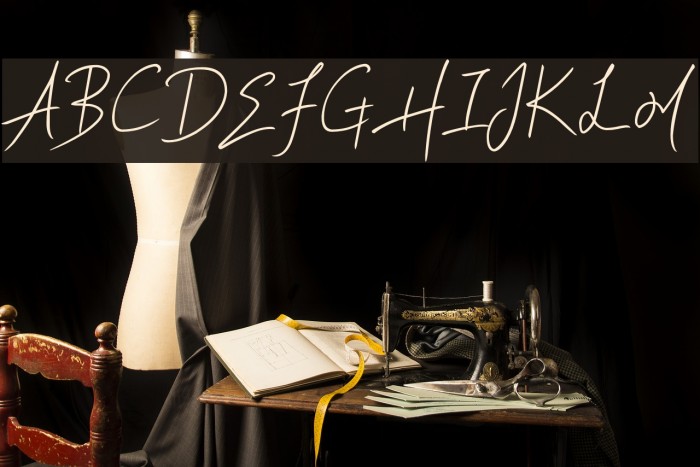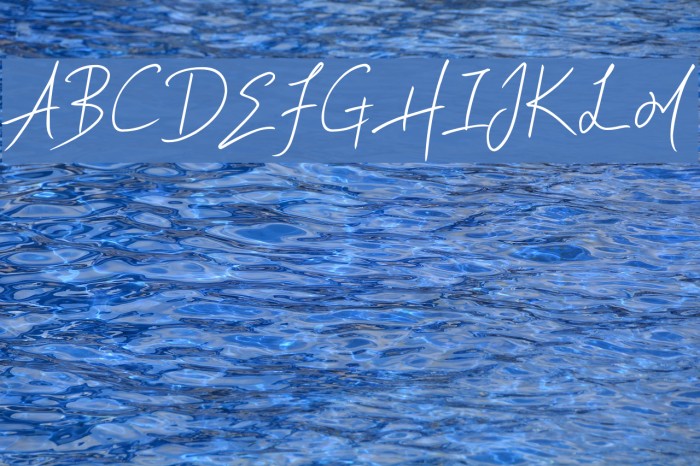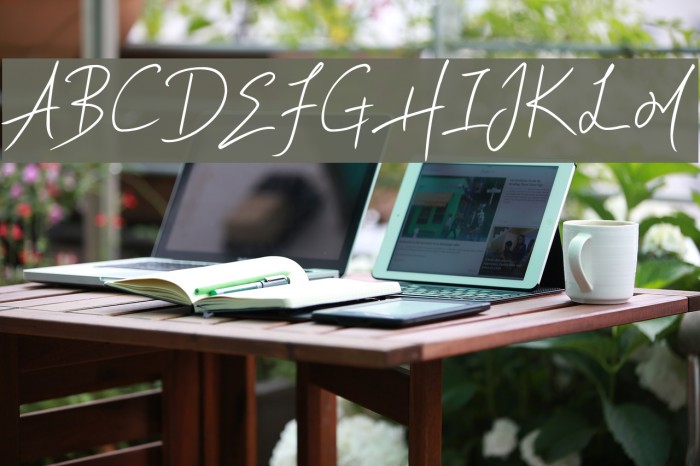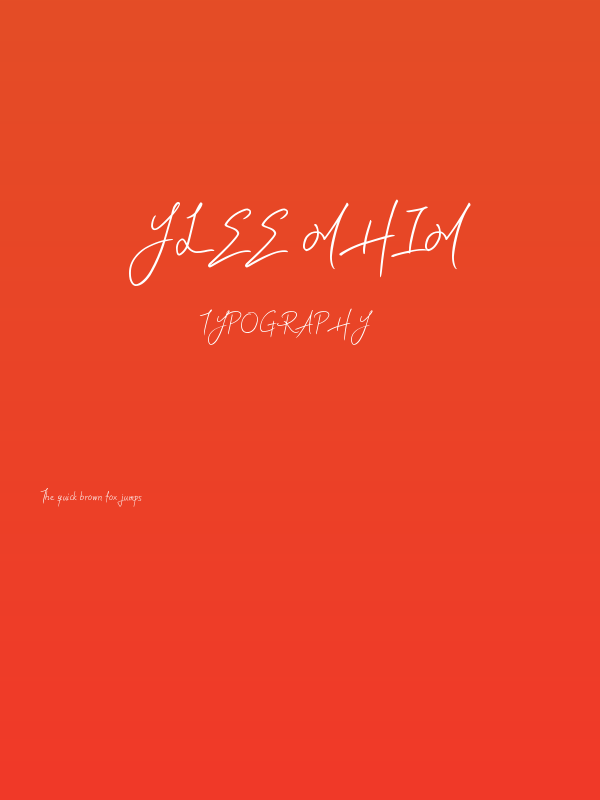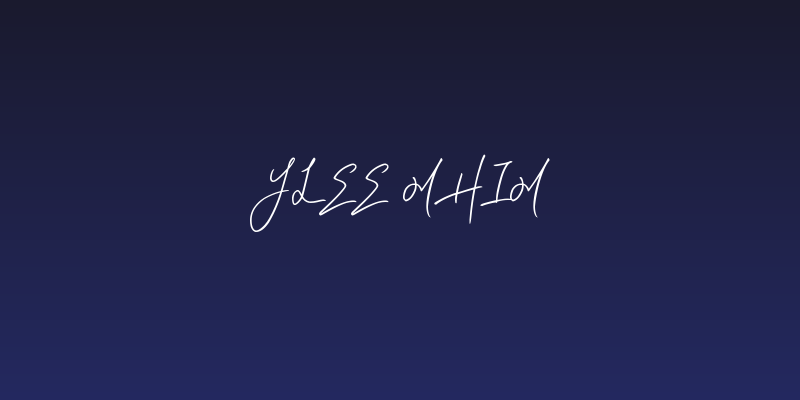
ylee MHIM Font
ylee MHIM Description
This font features a fluid, handwritten style with a natural and elegant flow. The uppercase letters exhibit a graceful, slightly slanted form, while the lowercase letters maintain a consistent, smooth curvature. The numerals are distinct and maintain the same flowing style, ensuring readability. Special characters are designed with the same attention to detail, adding a touch of sophistication. The overall appearance is both artistic and legible, making it suitable for a variety of creative applications.
| Overall Style | Elegant, Artistic |
| Proposed Projects | Ideal for wedding invitations, greeting cards, personal branding, and artistic projects requiring a personal touch. |